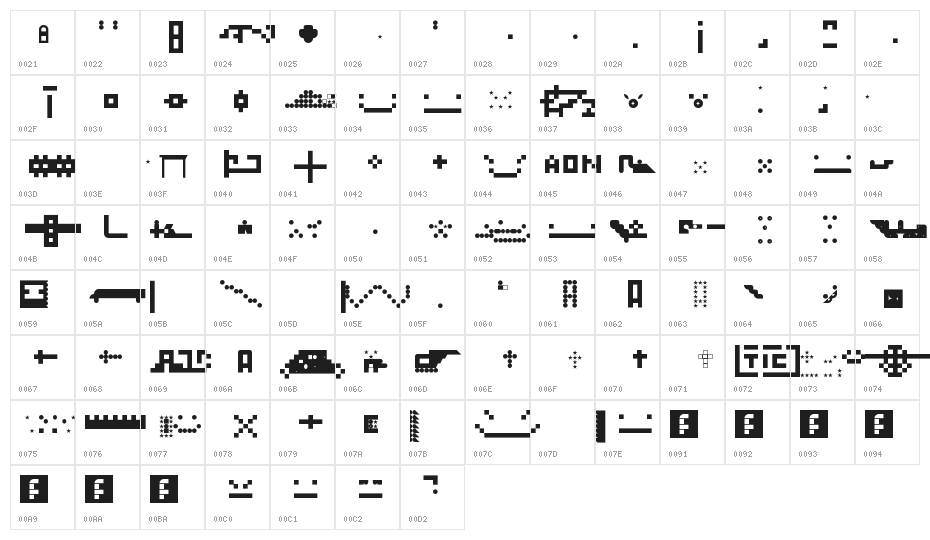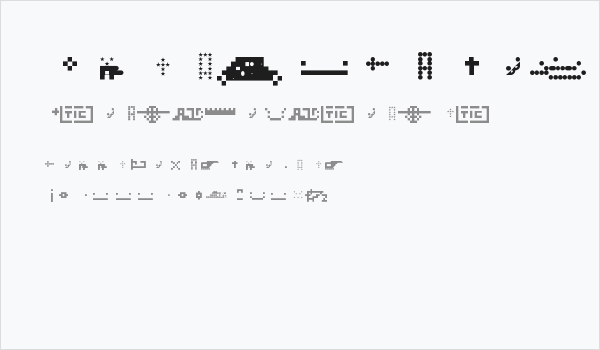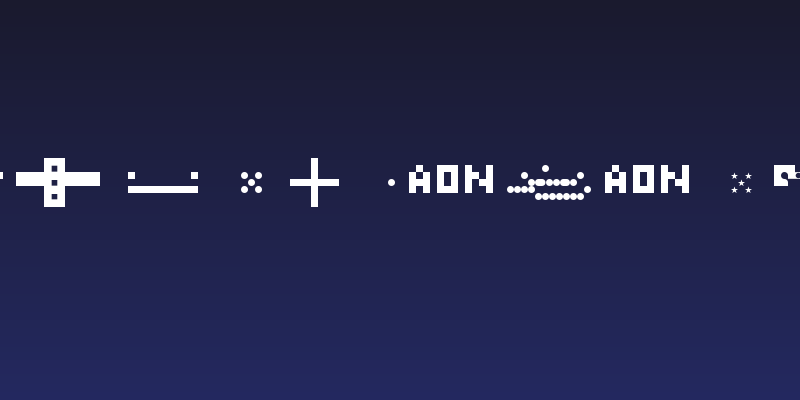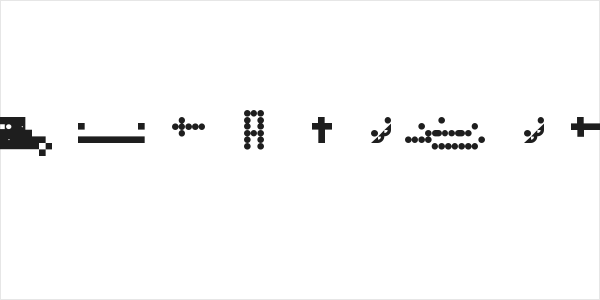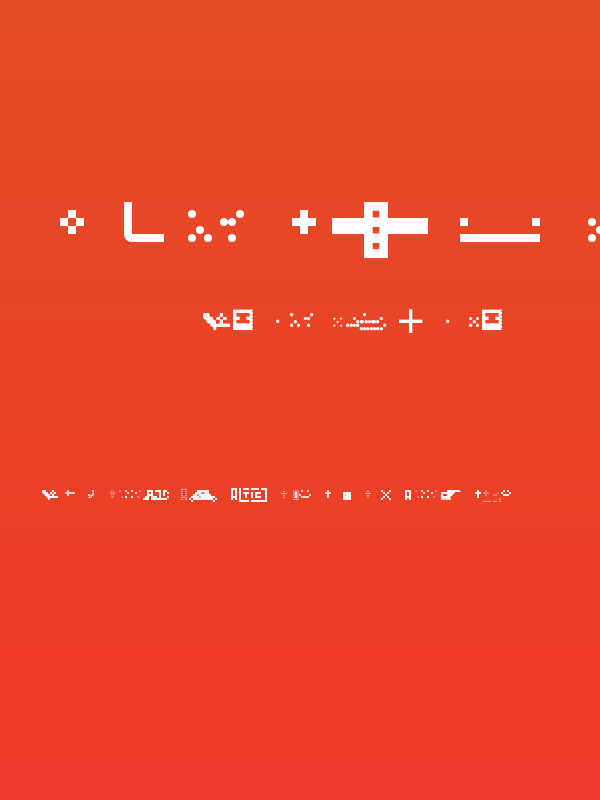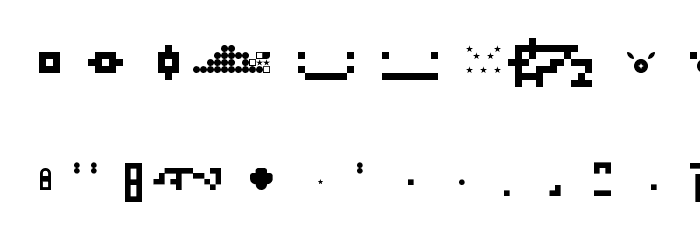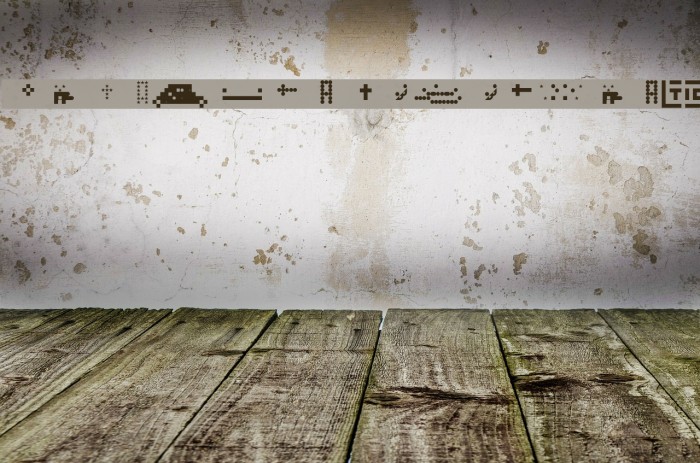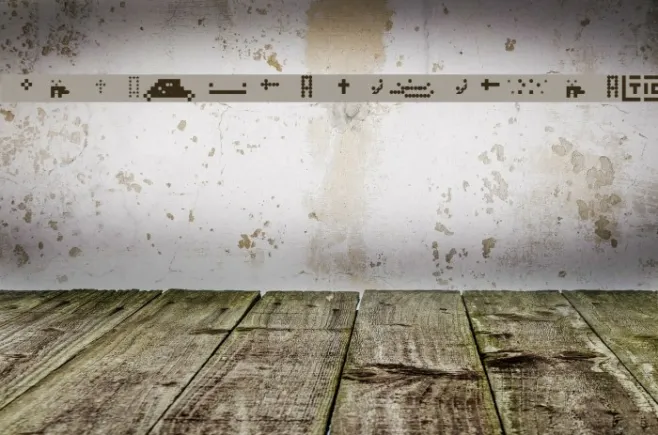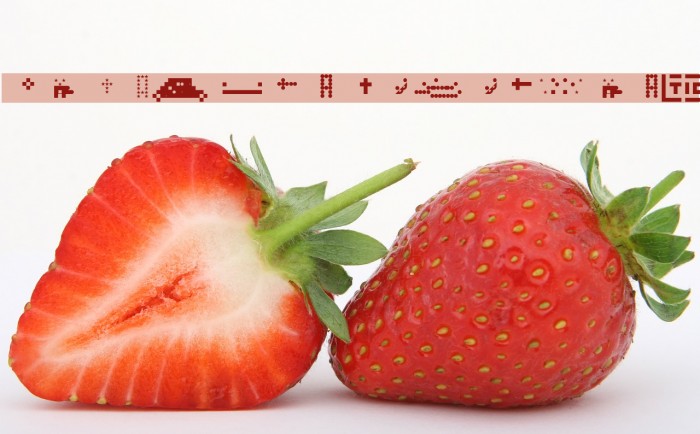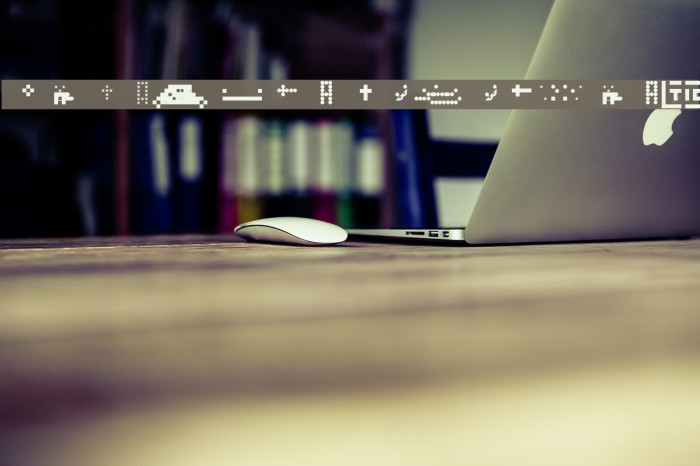
Block Shape Regular Font
Block Shape Regular Description
This font features a highly decorative and abstract design, characterized by its blocky and geometric shapes. Each character is composed of intricate patterns and forms, creating a unique visual style that is both artistic and unconventional. The font lacks traditional letterforms, instead opting for a creative interpretation that may resemble digital or pixel art. Its distinct appearance makes it stand out, offering a modern and avant-garde aesthetic that is suitable for artistic and experimental projects.
| Overall Style | Modern, Avant-garde |
| Use Case | Logos, Posters, Artistic projects |
| Proposed Projects | Ideal for digital art, experimental design projects, and creative branding. |